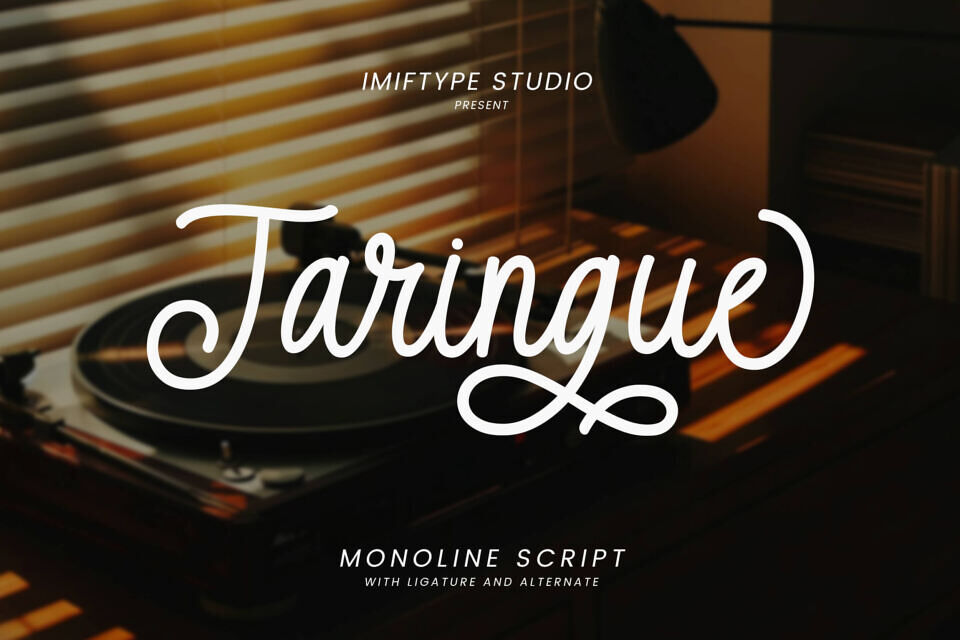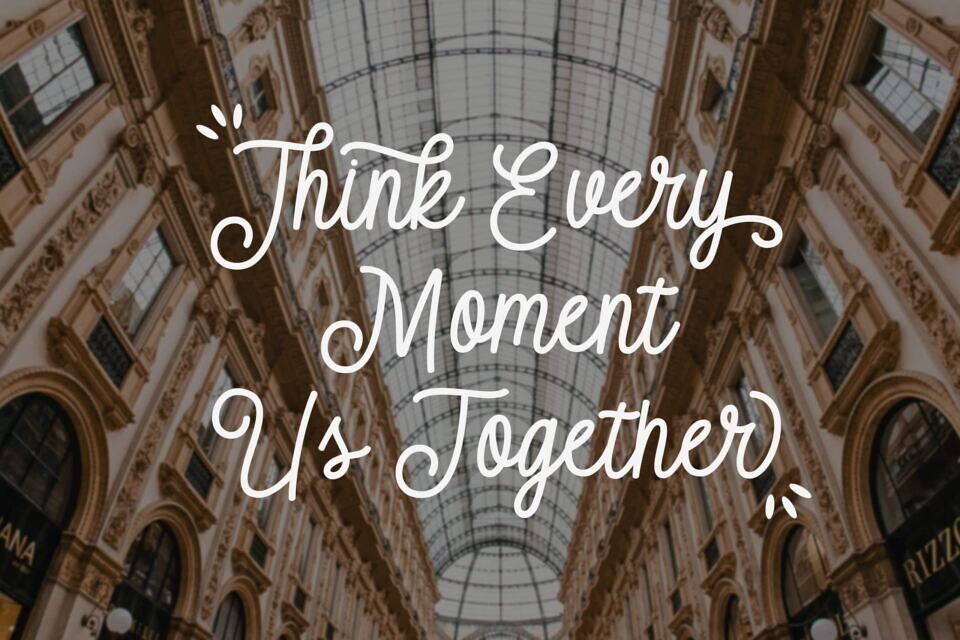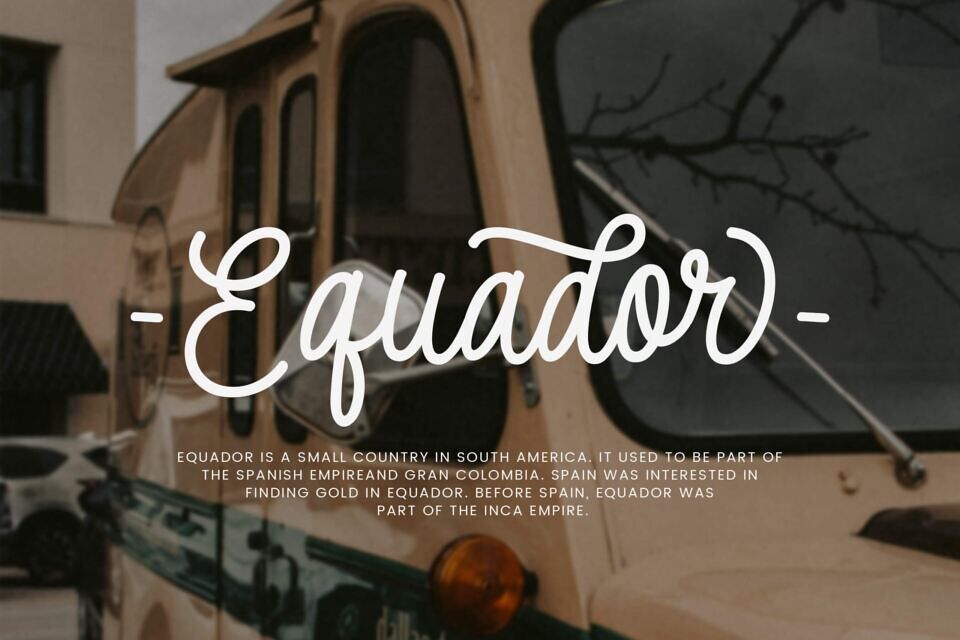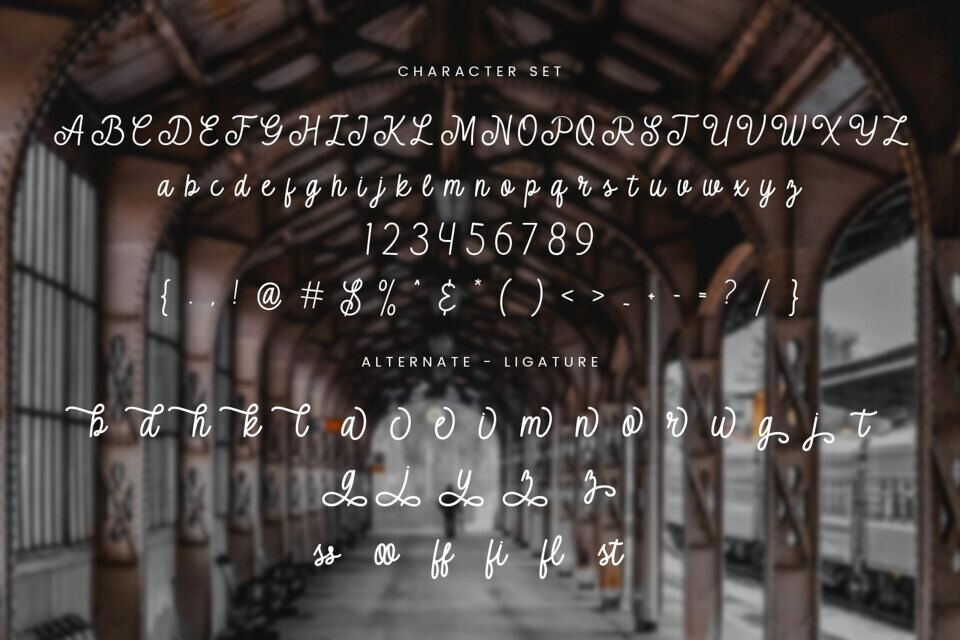
Taringue is a minimalist monoline script font, designed for those who appreciate simplicity and elegance. Its clean lines and delicate curves create a timeless appeal, perfect for adding a touch of sophistication to any design.